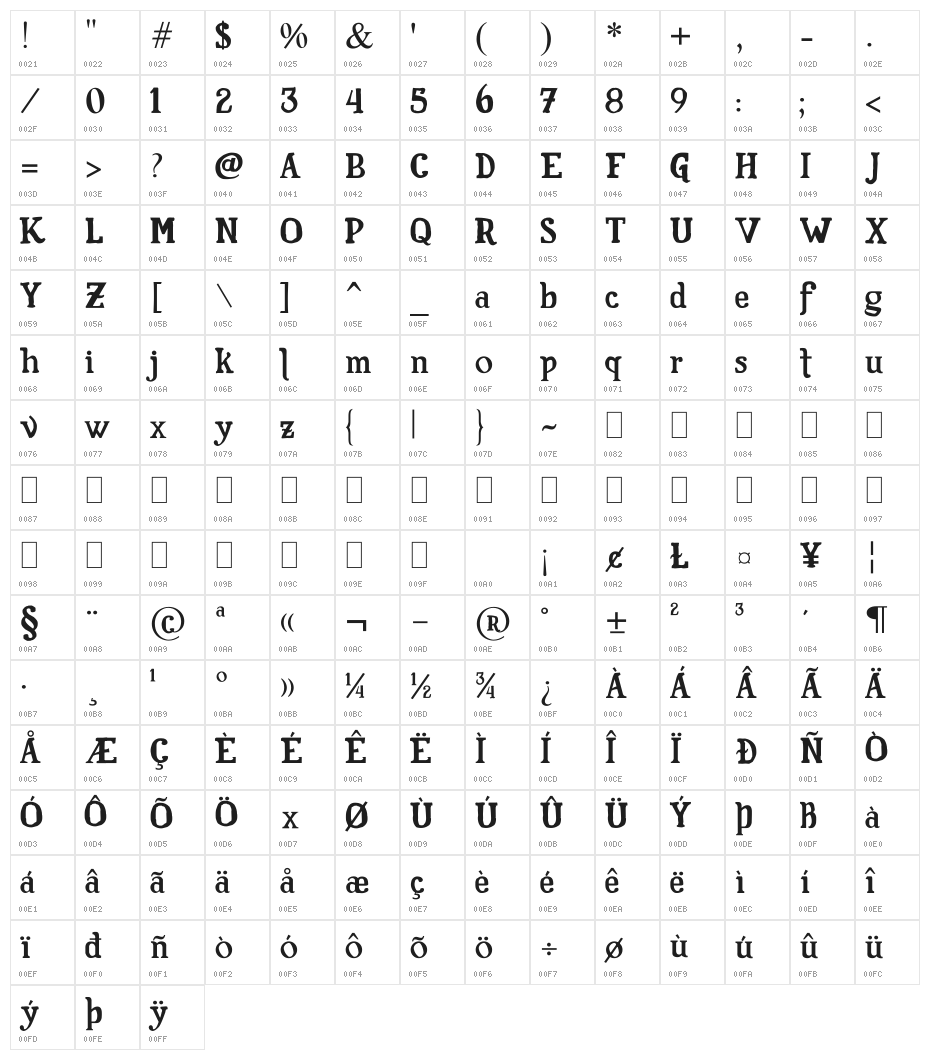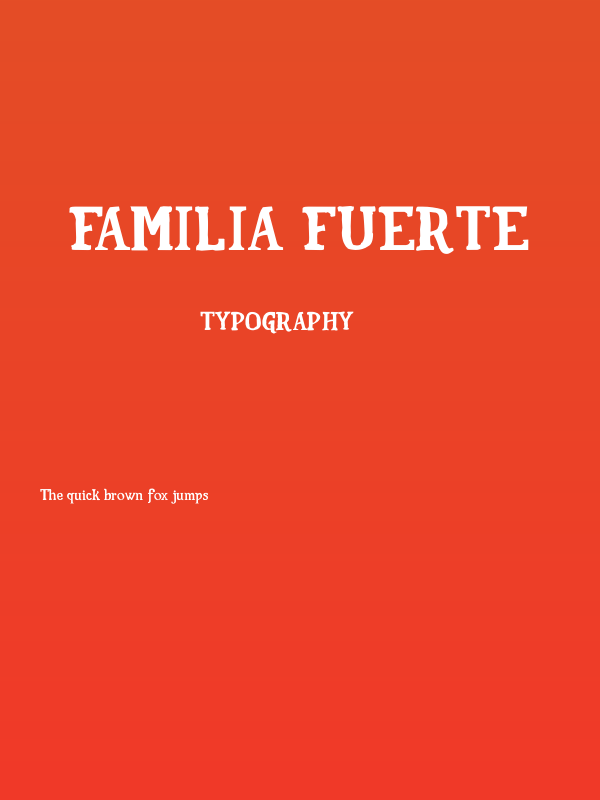
Familia Fuerte Font
Familia Fuerte Description
This font exhibits a bold and robust character with a distinctive flair. The uppercase letters are strong and commanding, featuring thick strokes and a slight curvature that adds a touch of elegance. The lowercase letters maintain a consistent weight, with unique elements such as the looped 'g' and the distinctive 'k'. Numbers are equally bold, ensuring readability and impact. Special characters are crafted with the same attention to detail, making them stand out. The overall design is reminiscent of traditional serif fonts but with a modern twist, making it versatile for various applications.
| Proposed Projects | Ideal for branding, headlines, posters, and any project requiring a strong, impactful typeface. |